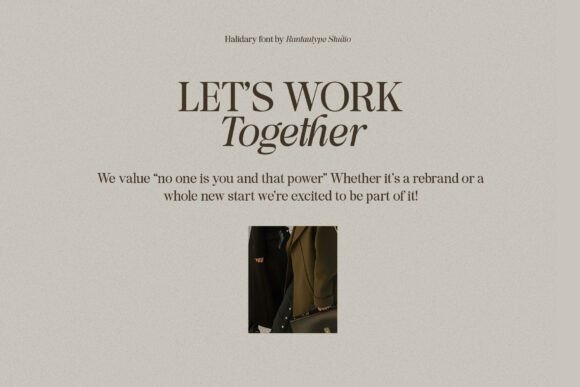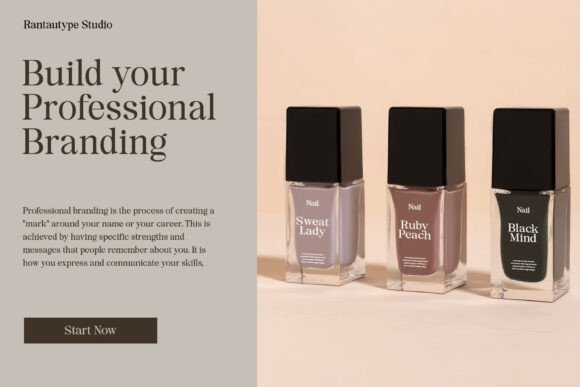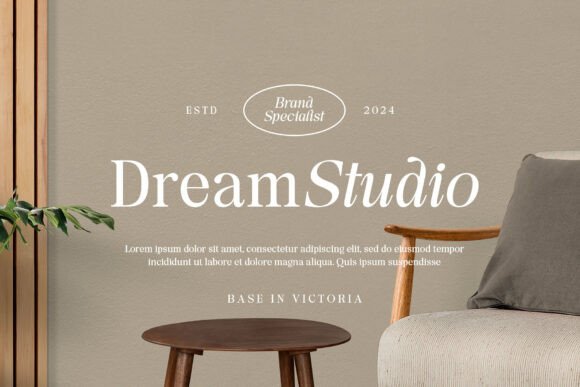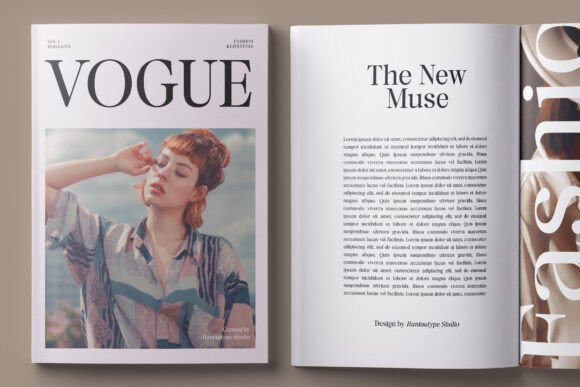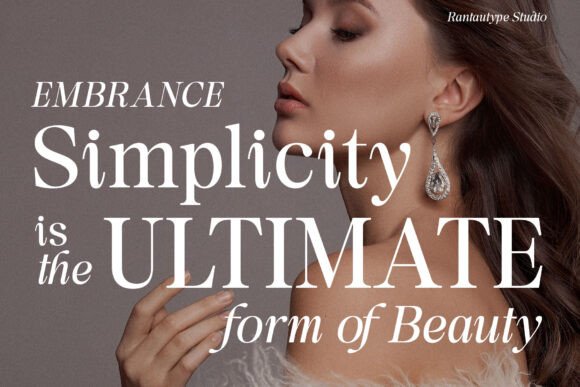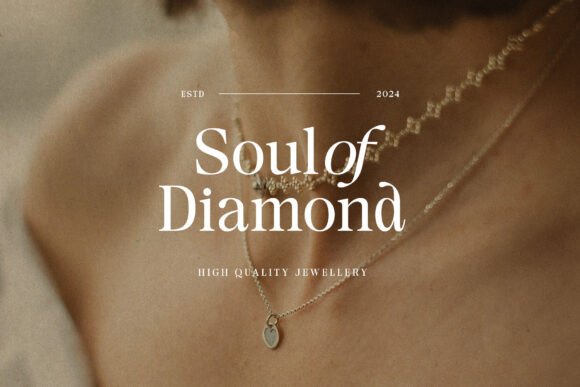
Introducing Halidary Font: Elevate Your Designs with Elegance and Sophistication
In the world of typography, fonts play a crucial role in conveying the tone and personality of a brand or design project. For designers and crafters seeking to add a touch of elegance and sophistication to their work, Halidary Font is an exceptional choice. This modern serif font is designed to bring charm and refinement to branding, editorial designs, and a wide range of creative projects.
What is Halidary Font?
Halidary is a thoughtfully crafted serif font that embodies the perfect blend of modernity and classic elegance. Its design is characterized by clean lines, precise curves, and a sophisticated aesthetic that instantly elevates any design project. Whether you’re working on a luxury brand identity, a fashion editorial, or a high-end product packaging, Halidary Font is the ideal choice to convey a sense of refinement and poise.
Key Features of Halidary Font
One of the standout features of Halidary Font is its versatility. The font comes in two distinct versions, each offering a unique flavor to suit various design requirements:
- High-Contrast Version: This version of Halidary boasts a more pronounced contrast between thick and thin strokes, creating a crisp and elegant look. It’s perfect for designs that demand attention to detail and a sophisticated feel, such as luxury branding, high-end editorials, and refined packaging.
- Crisper Version: For projects that require a slightly more restrained yet still elegant approach, the crisper version of Halidary offers a subtle charm. It’s ideal for editorial designs, blogs, and any project where readability and style are paramount.
The availability of two versions allows designers to mix and match them, creating a wide range of design possibilities. This flexibility makes Halidary Font an incredibly valuable tool for creatives looking to push the boundaries of typography and design.
Applications of Halidary Font
Halidary Font’s versatility and elegance make it suitable for a variety of applications, including:
- Branding and Logo Design: Use Halidary to create a lasting impression with a sophisticated and elegant brand identity.
- Editorial Design: Elevate your editorial projects, such as magazines, newspapers, and blogs, with a font that offers both readability and style.
- Packaging Design: Add a touch of luxury to product packaging with Halidary’s refined and elegant aesthetic.
- Web Design: Enhance your website’s typography with Halidary, creating a sophisticated online presence that engages visitors.
Why Choose Halidary Font?
In a sea of fonts, Halidary stands out for its unique blend of modernity and elegance. Here are a few reasons why designers and crafters should consider Halidary for their next project:
- Elegance and Sophistication: Halidary brings an unparalleled level of elegance and sophistication to any design project.
- Versatility: With two versions to choose from, designers have the flexibility to experiment and find the perfect fit for their project.
- Readability: Despite its elegant design, Halidary maintains excellent readability, making it suitable for both headlines and body text.
Halidary Font is a game-changer for designers and crafters seeking to infuse their projects with elegance, sophistication, and a modern edge. Its versatility, combined with its refined aesthetic, makes it an invaluable addition to any design toolkit. Whether you’re working on a luxury brand, an editorial project, or any design endeavor that demands a touch of class, Halidary Font is the perfect choice. Explore the possibilities with Halidary and elevate your designs to new heights of elegance and sophistication.